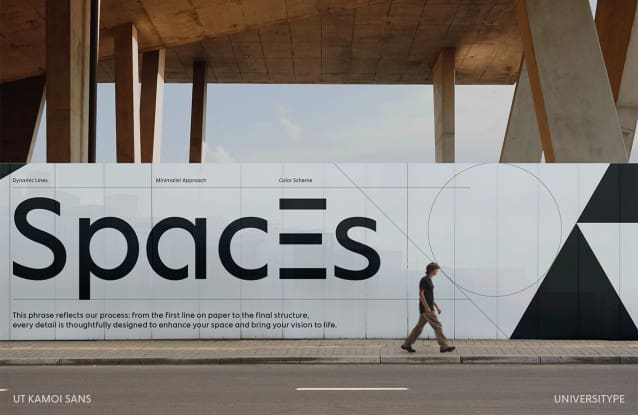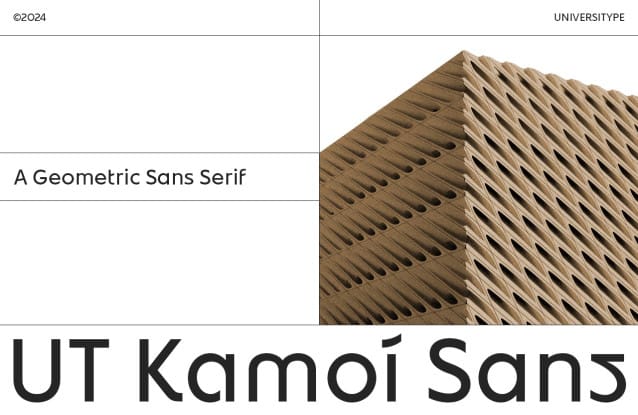
UT Kamoi Sans Font
UT Kamoi Sans Font is a geometric sans serif font that combines the precision of modern design with the rich cultural heritage of Japanese aesthetics. Drawing inspiration from the smooth curves of Hiragana and Katakana scripts, as well as the meticulous symmetry found in architectural floor plans, this typeface strikes a harmonious balance between artistry and functionality.